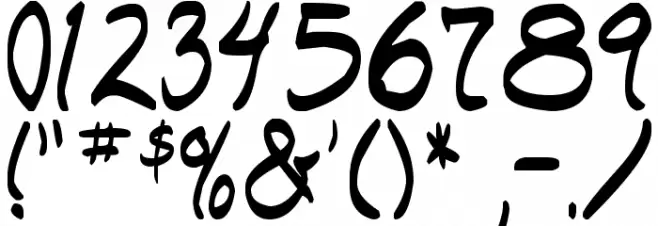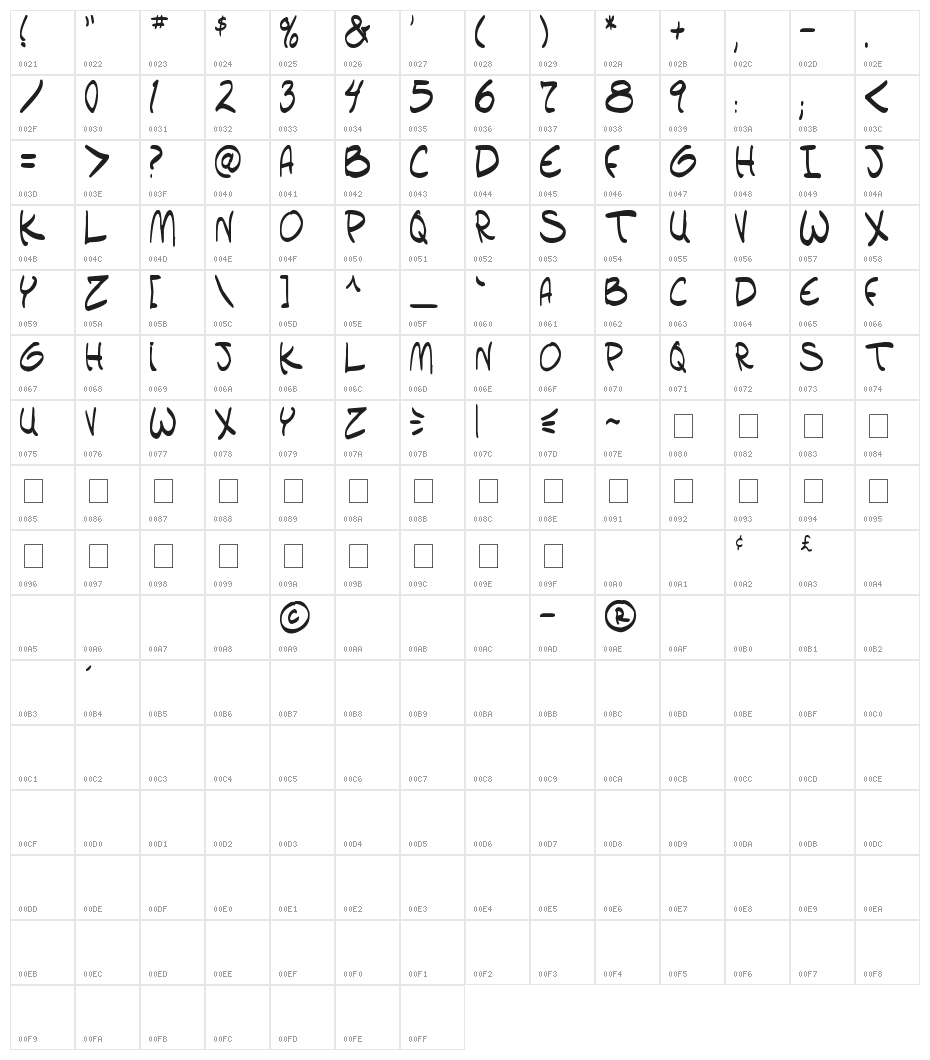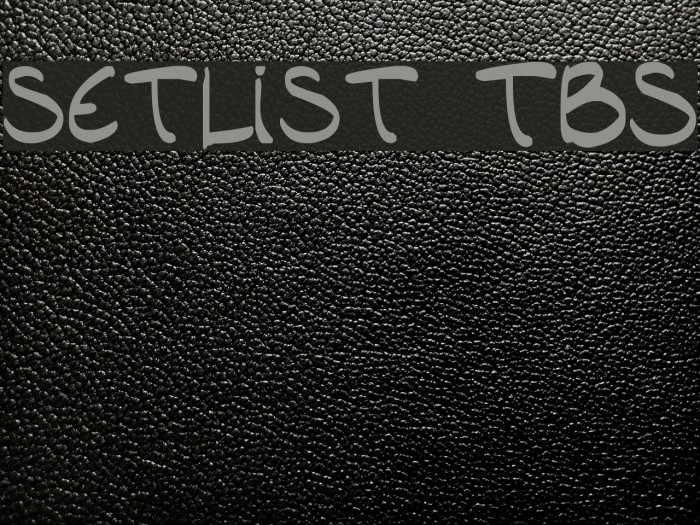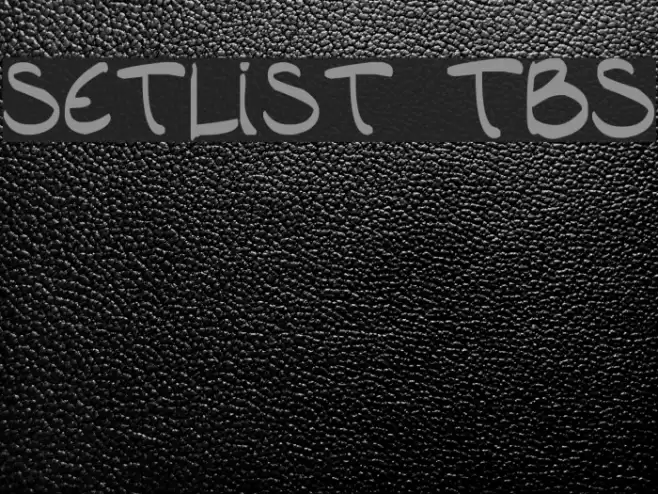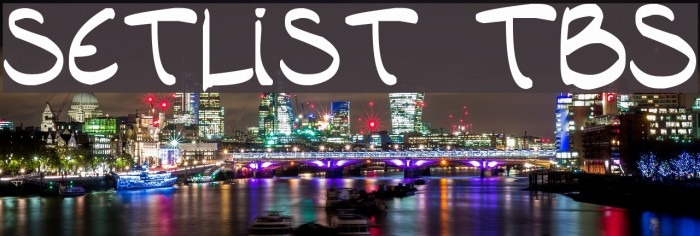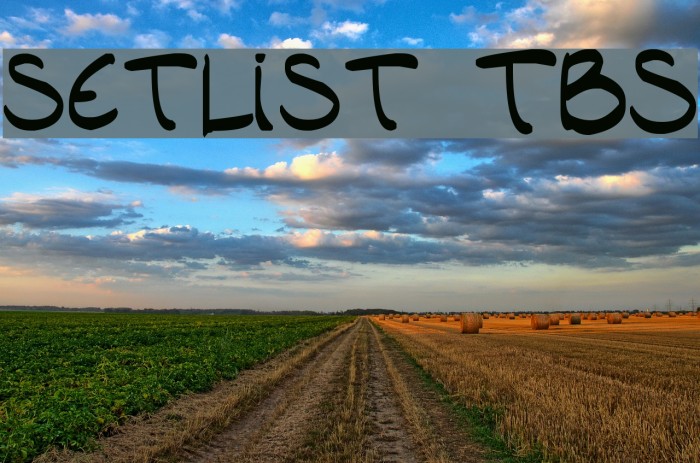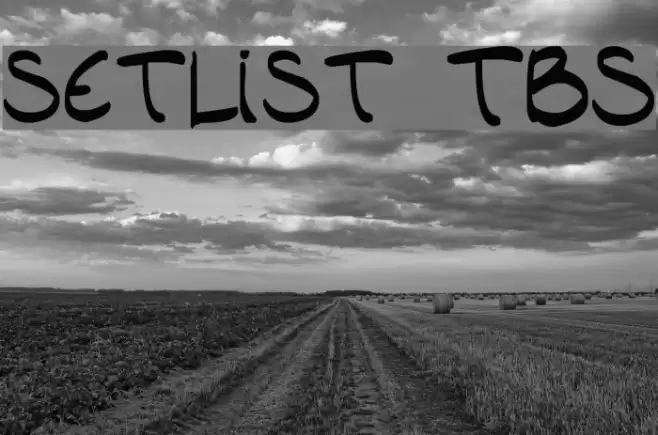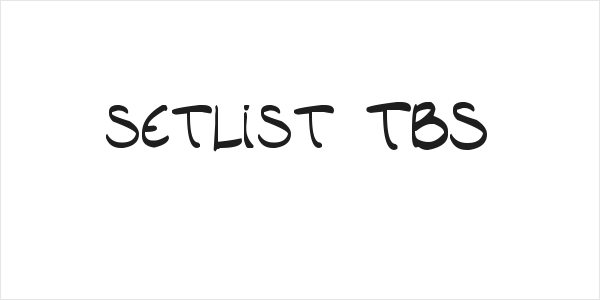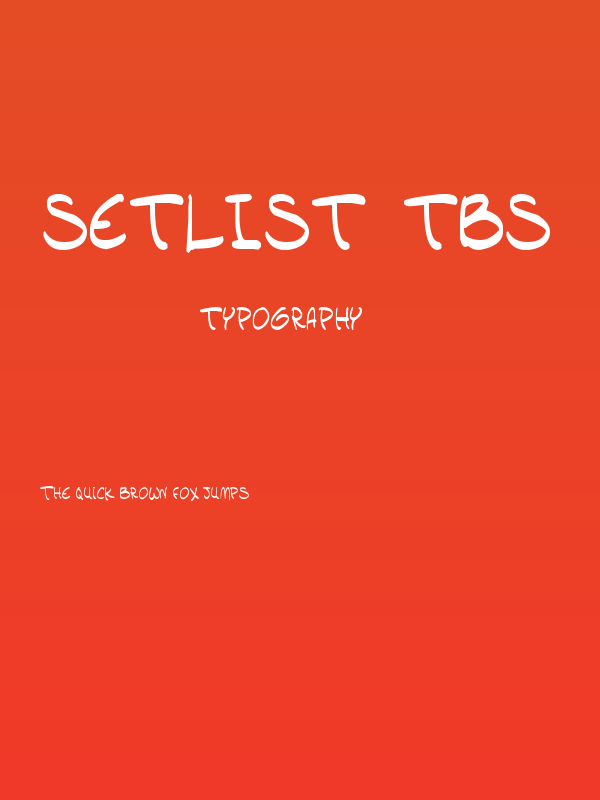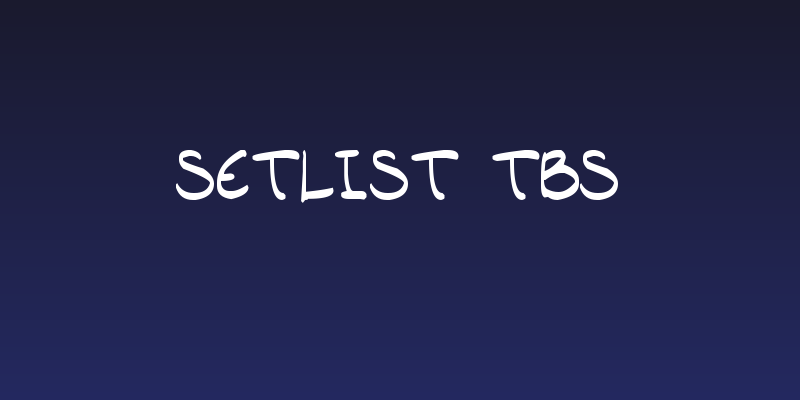
setlist TBS Font
setlist TBS Description
This font features a bold, handwritten style with a playful and casual appearance. The letters are rounded and slightly irregular, giving them a dynamic and energetic feel. The uppercase and lowercase characters maintain a consistent style, with a slight slant that adds to the informal look. The numbers and special characters are equally bold and maintain the same playful aesthetic. This font is highly legible and stands out due to its thick strokes and unique character shapes.
Overall StyleCasual
Proposed ProjectsIdeal for projects that require a fun and informal touch, such as children's books, playful branding, greeting cards, and casual event invitations.